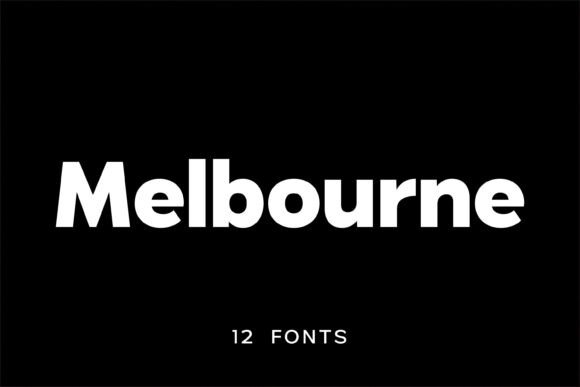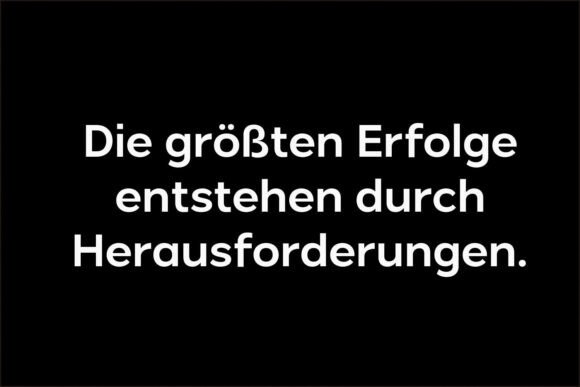
Melbourne Font
Melbourne is a modern, geometric sans-serif font family that brings a fresh twist to timeless classics like Futura and avant-garde. With its high x-height, crisp letterforms, and minimal stroke contrast, Melbourne reflects the clean, bold style of neo-grotesque fonts from the 20th century, but with a look that feels unmistakably contemporary. Its sharp edges and precise geometry give it a striking, professional appearance that’s perfect for projects that need a touch of sleek sophistication.
The Melbourne font family features 12 unique styles, offering flexibility and a wide range of possibilities. With its precise, geometrical letterforms, Melbourne delivers a polished, consistent look across every style, allowing designers to find the perfect fit for any setting. Whether you’re going bold with headlines or keeping it subtle in body text, Melbourne maintains a sharp and refined aesthetic.
Thanks to its timeless neo-grotesk influence, Melbourne shines in various applications: from branding and advertising to UI/UX design, magazines, and more. It’s particularly impactful in high-visibility placements, such as logos, signage, and packaging, where clarity and style are essential. Melbourne’s clean lines make it a great choice for industries ranging from fashion to technology, helping your designs communicate with style and confidence.